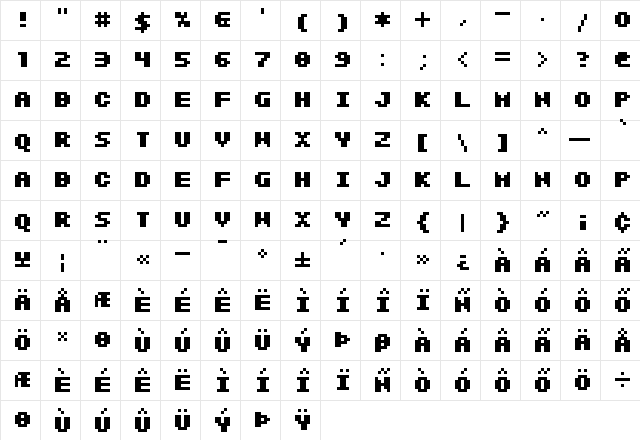
SF Intermosaic Bold
Design Context for SF Intermosaic Typeface
SF Intermosaic offers clean, dependable letterforms without strong stylistic allegiance, making it a practical choice for designers who need flexibility. Its bold stroke weight gives it real presence on the page.